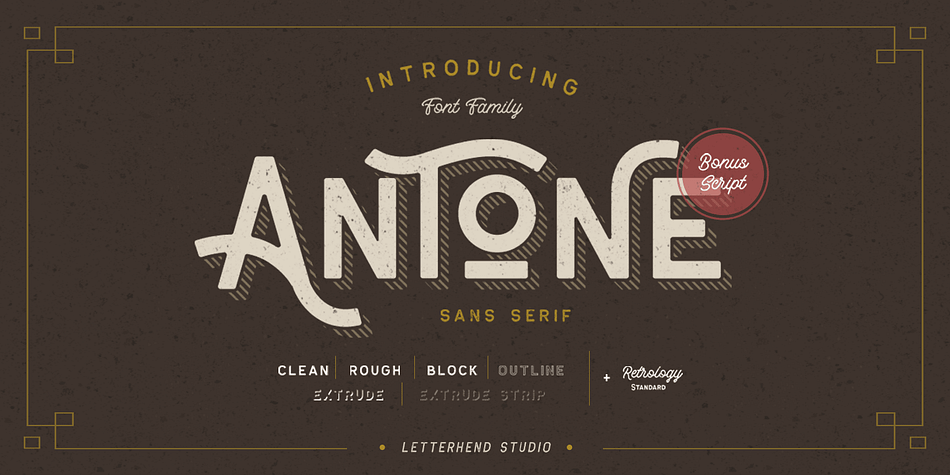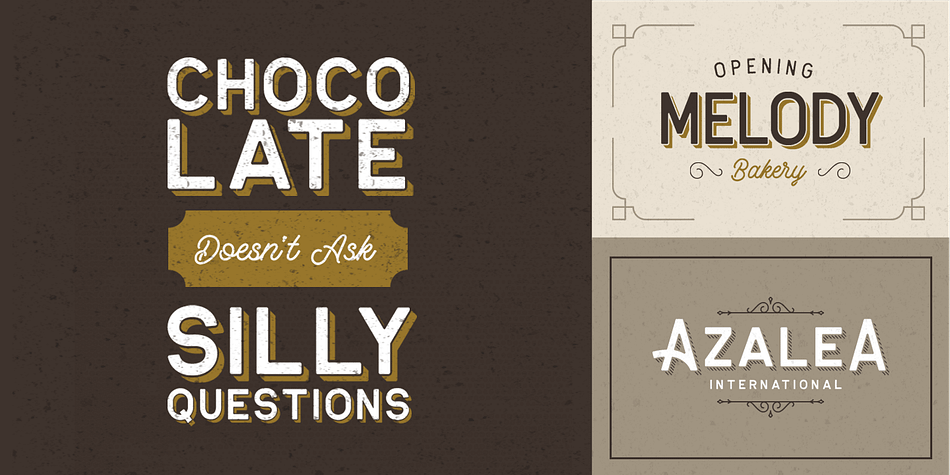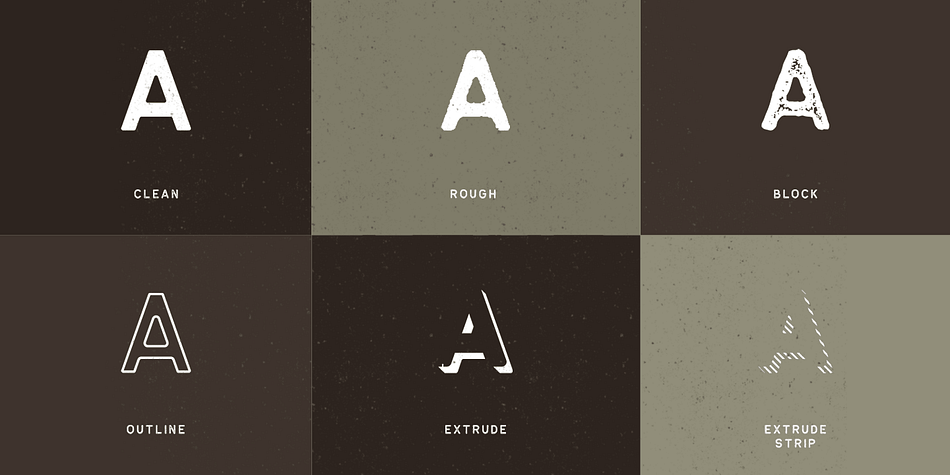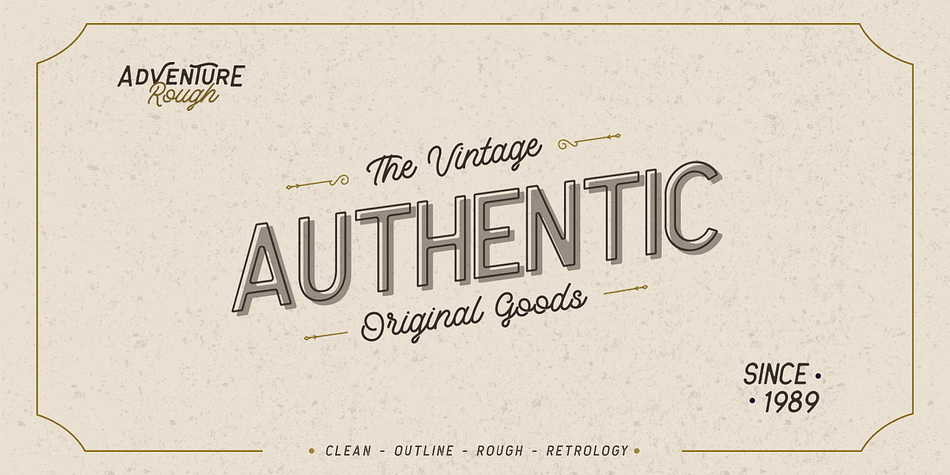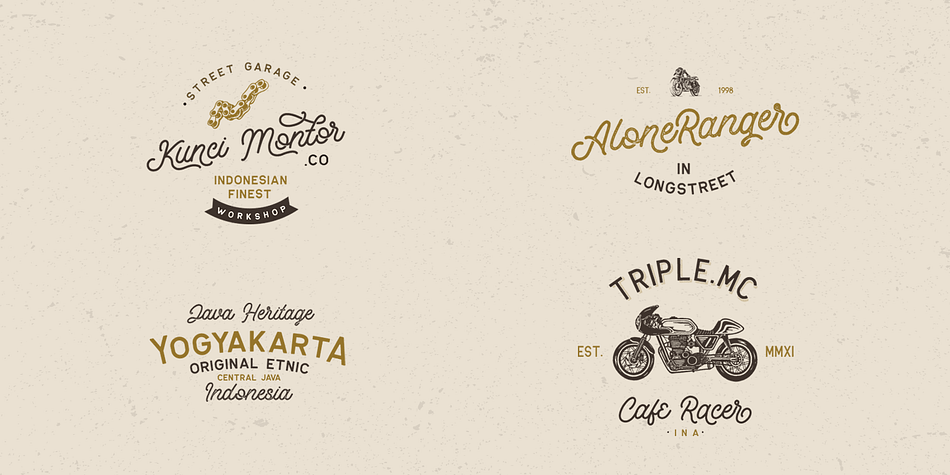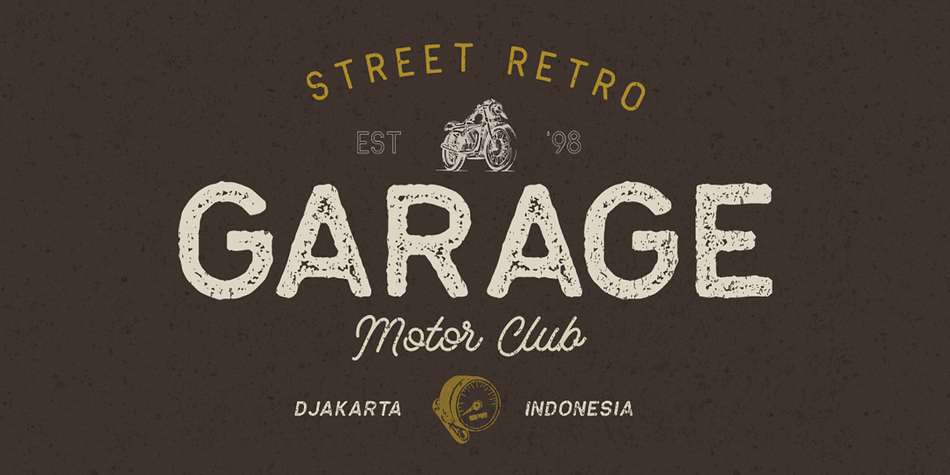
Designed by Hendry Juanda, Antone is a multiple classification font family. This typeface has seven styles and was published by Letterhend Studio.
Antone is a font family which has 7 font version. The character of the clean version of this font is bold, strong, yet elegant. While the rough and block version is suitable for vintage & retro feel.